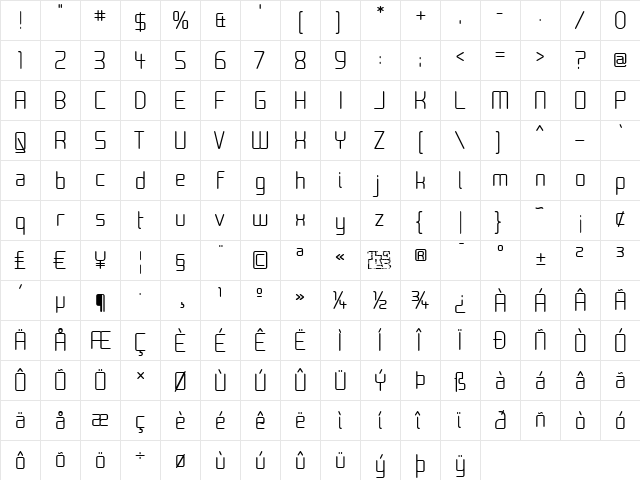
Moondog Fifteen Regular
| Designer | Graham Meade & Apostrophe |
Design Context for Moondog Fifteen Typeface
Moondog Fifteen is a composed and adaptable typeface that performs quietly and consistently across a wide range of design contexts.